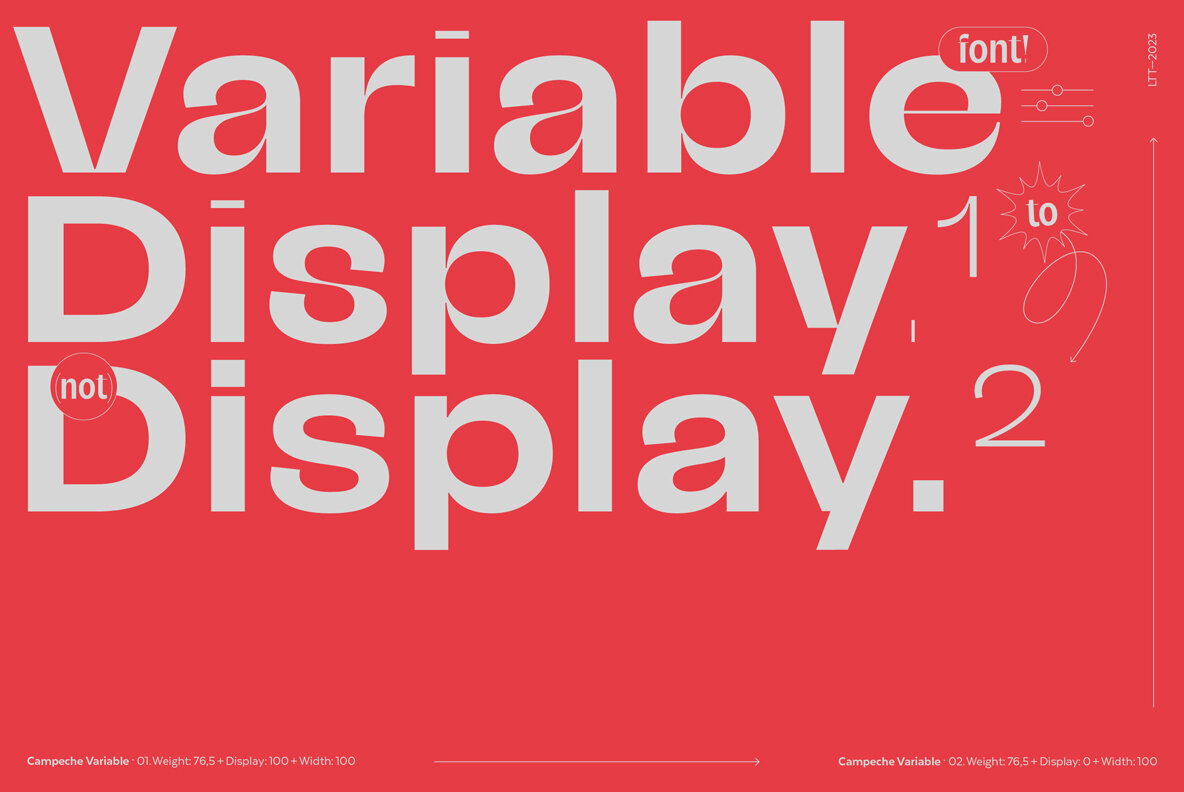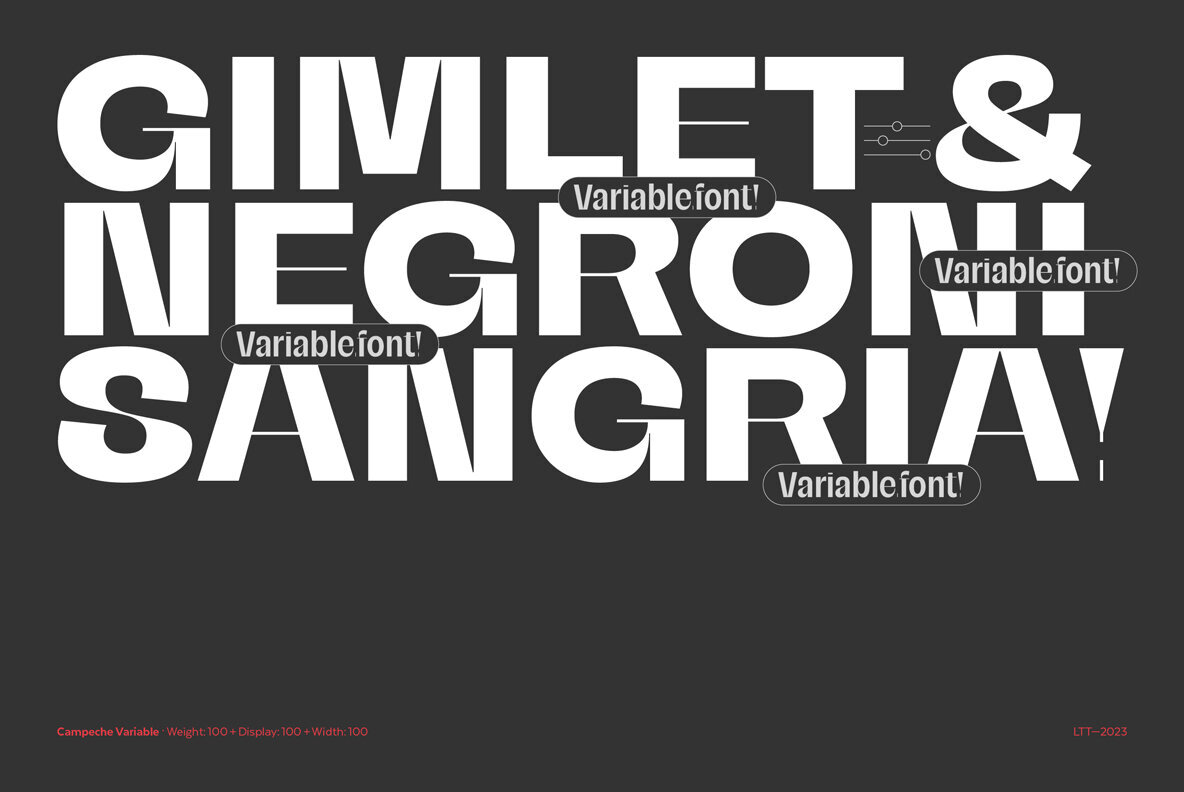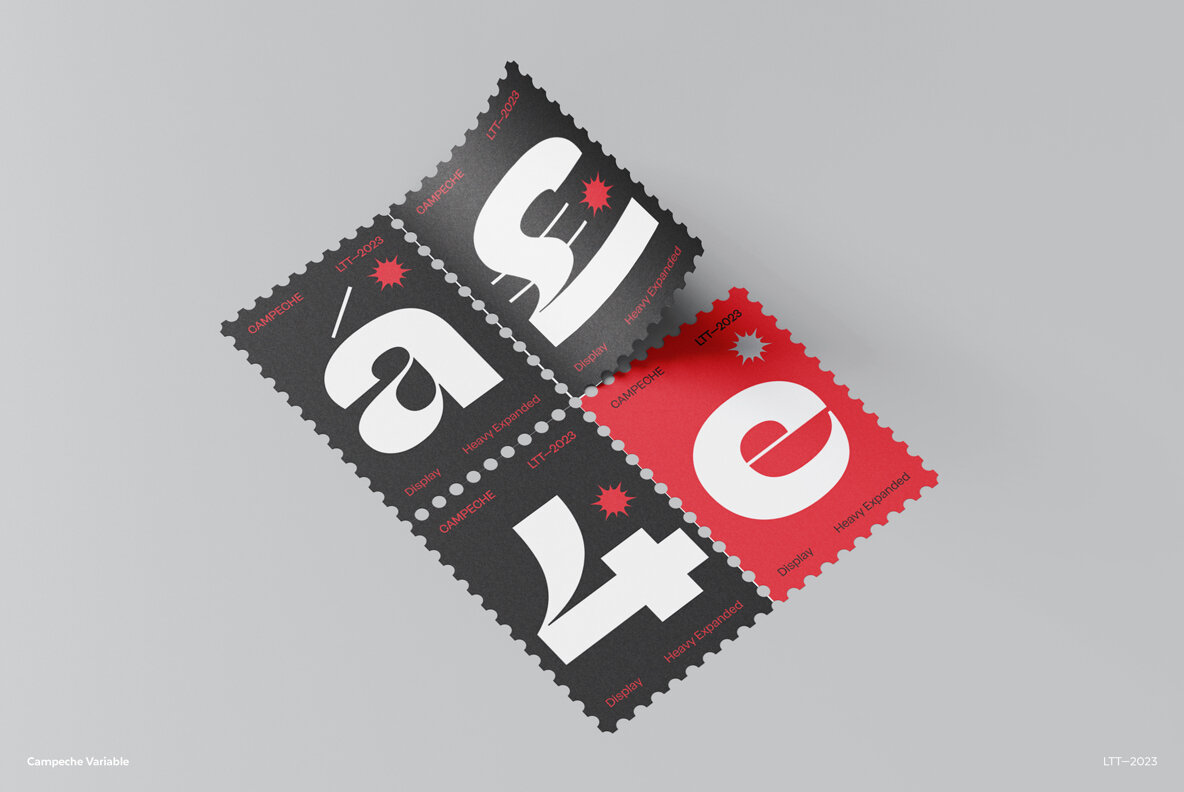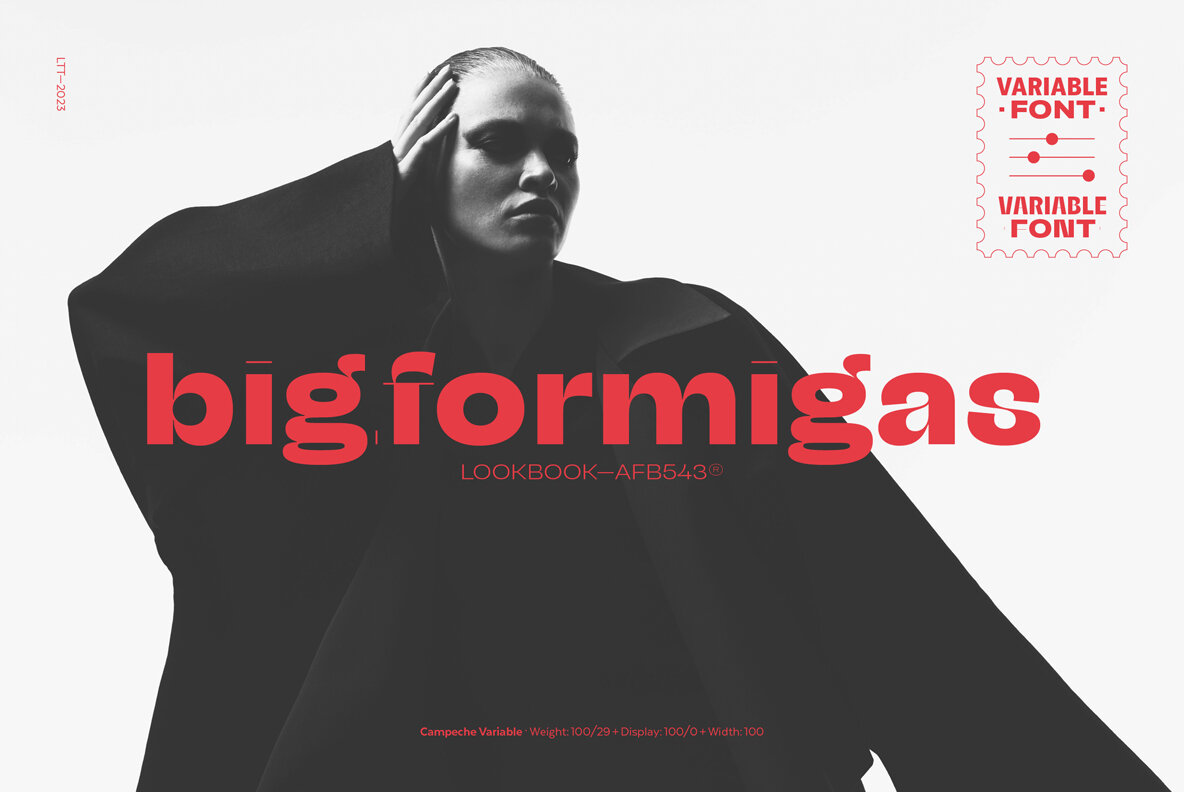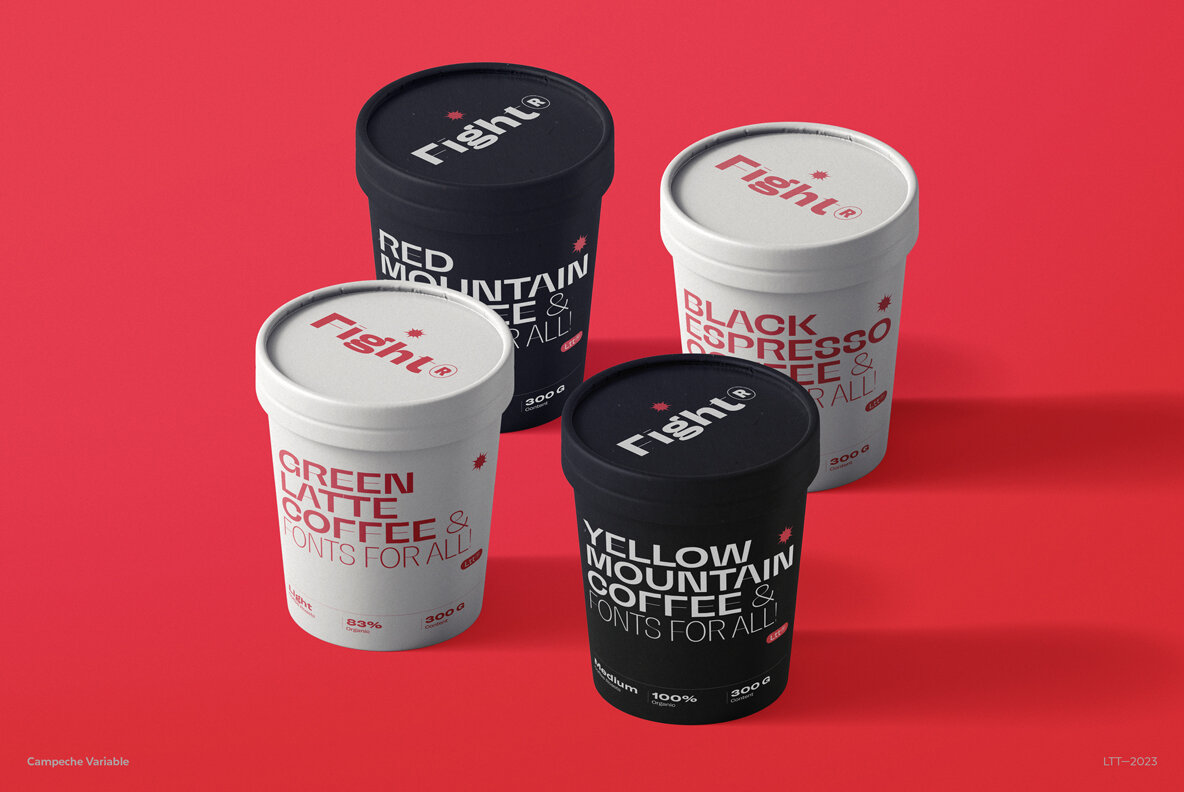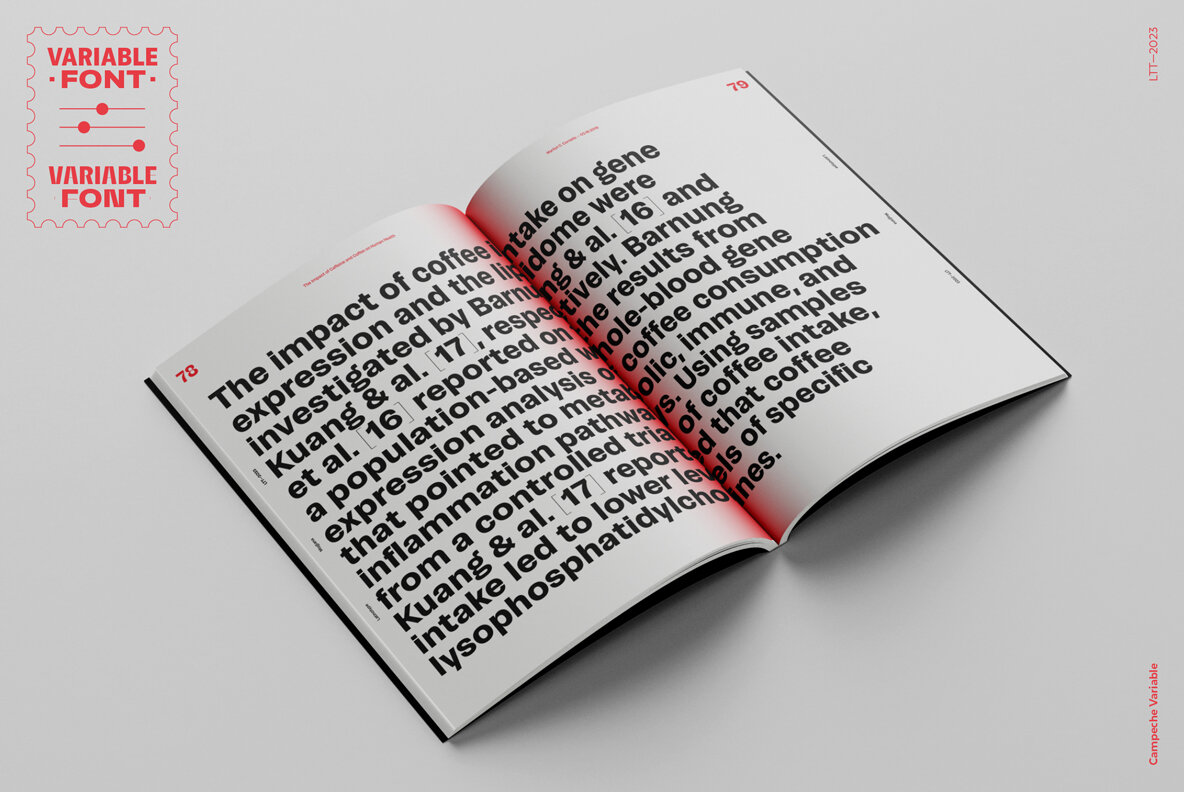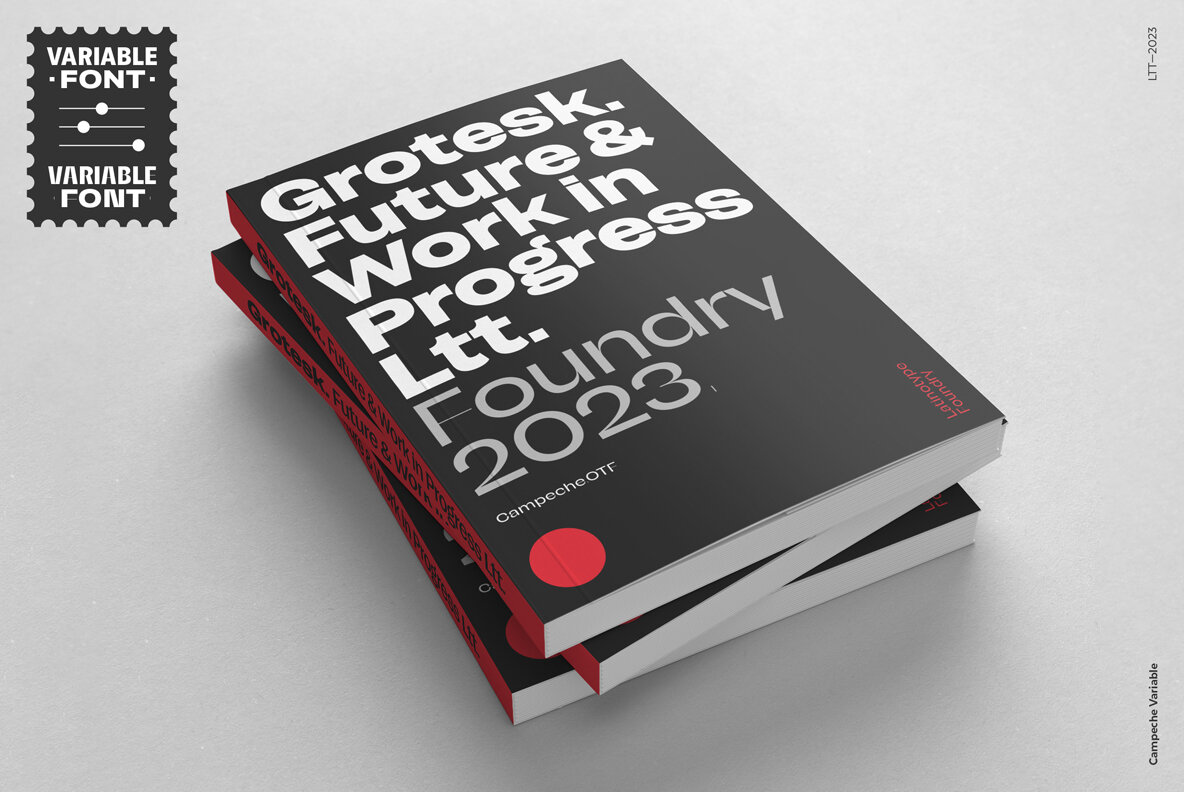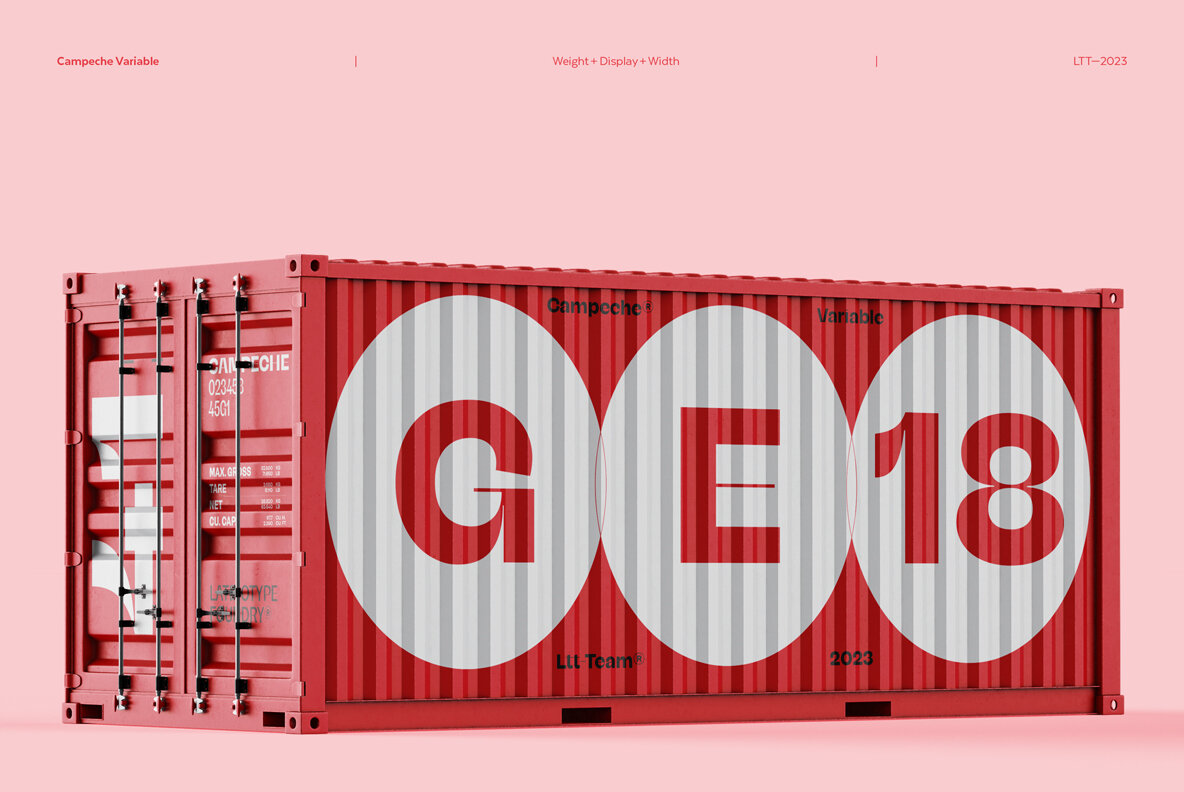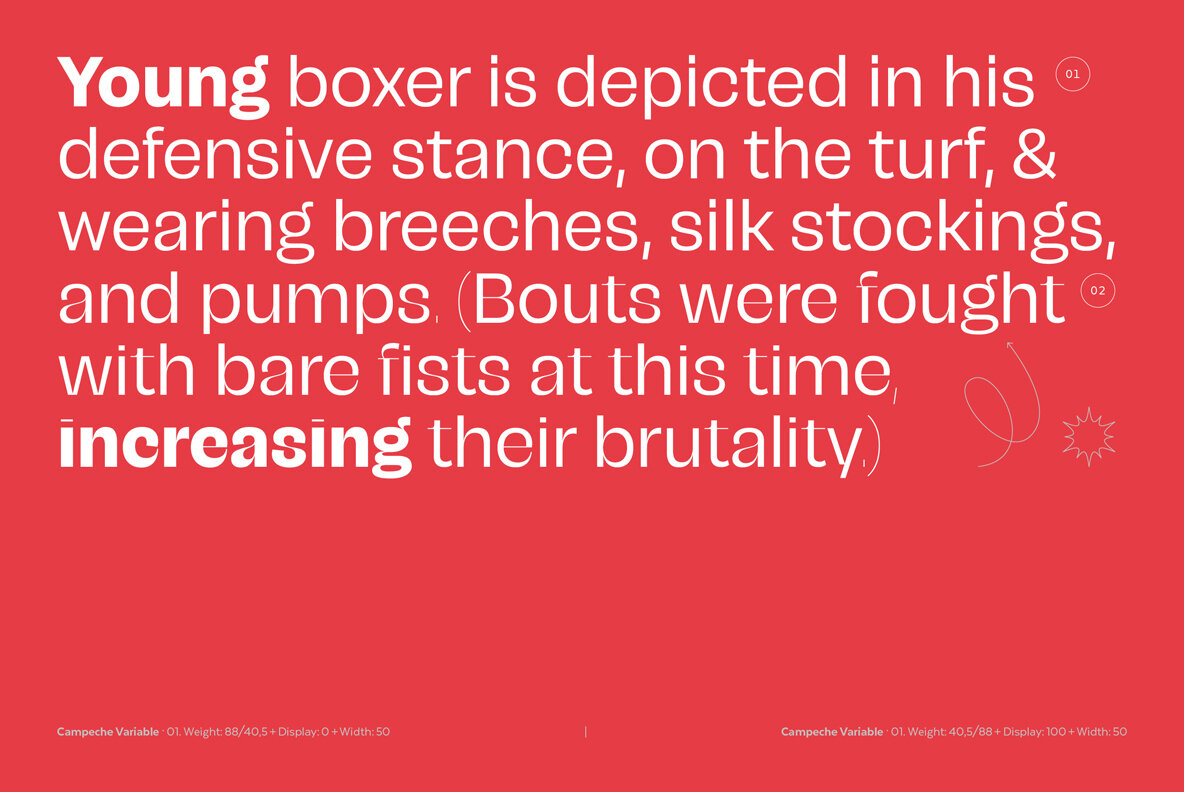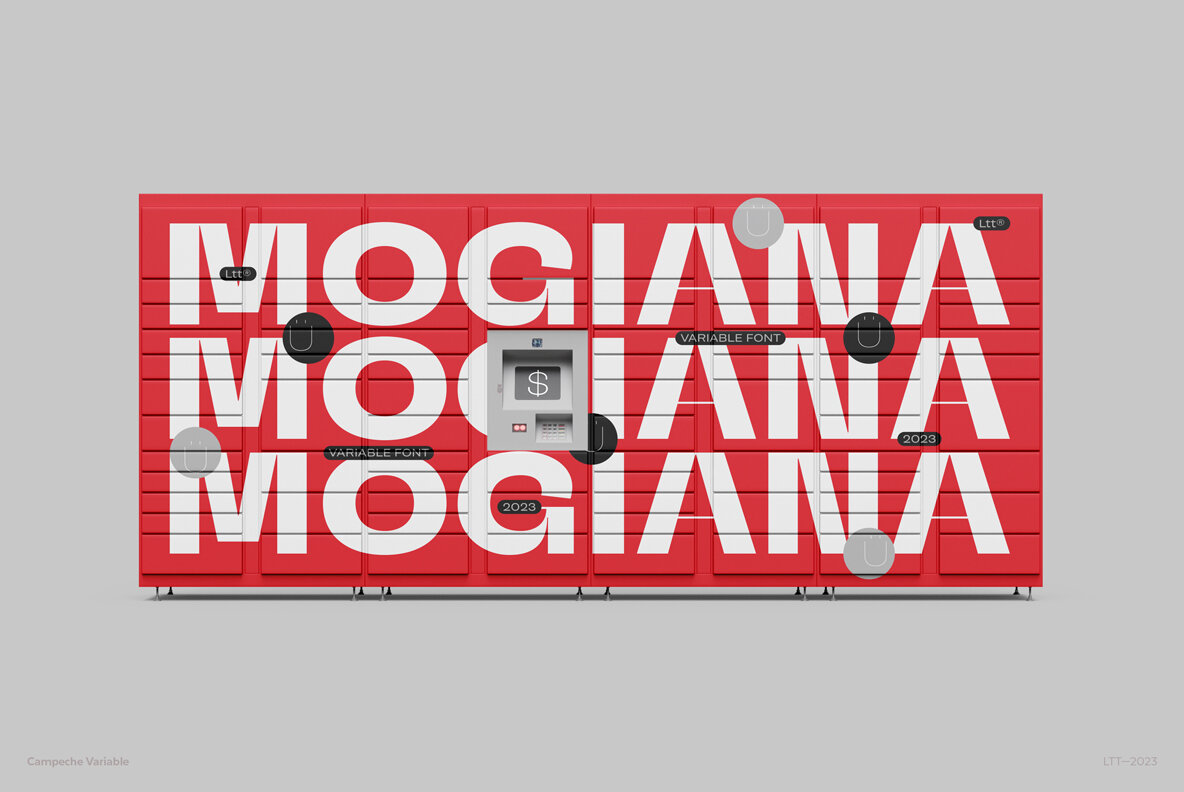
Campeche Variable Font
Campeche Variable
Campeche variable is an expressive yet functional typeface family. Seeking to express its beauty, it twists the conventions of classic typography when necessary. Campeche finds its inspiration in the grotesque typefaces of the late 19th century coupled with a typical Latin American playful sense that gives it a modern freshness. The initial form arises from the idea of expanding Seriguela, evolving along the way, becoming its own system with a unique personality. Campeche is designed according to today's visual requirements. Taking advantage of variable technology in 3 axes: width, weight and display. Campeche Variable is a typeface that provides versatility for almost any use. It can be used for packaging, editorial, branding... etc.The mixture of its possibilities can generate complex graphic parts or systems with different levels of hierarchy, without losing unity.